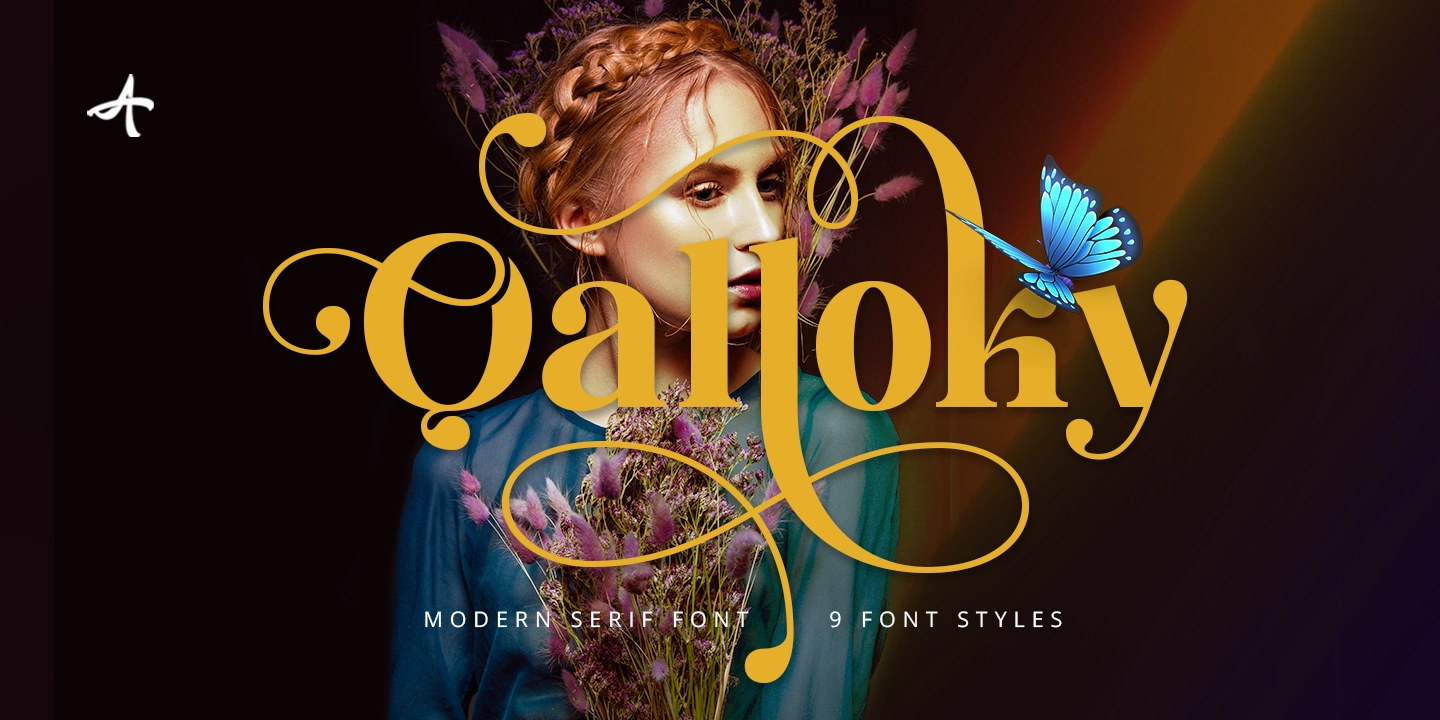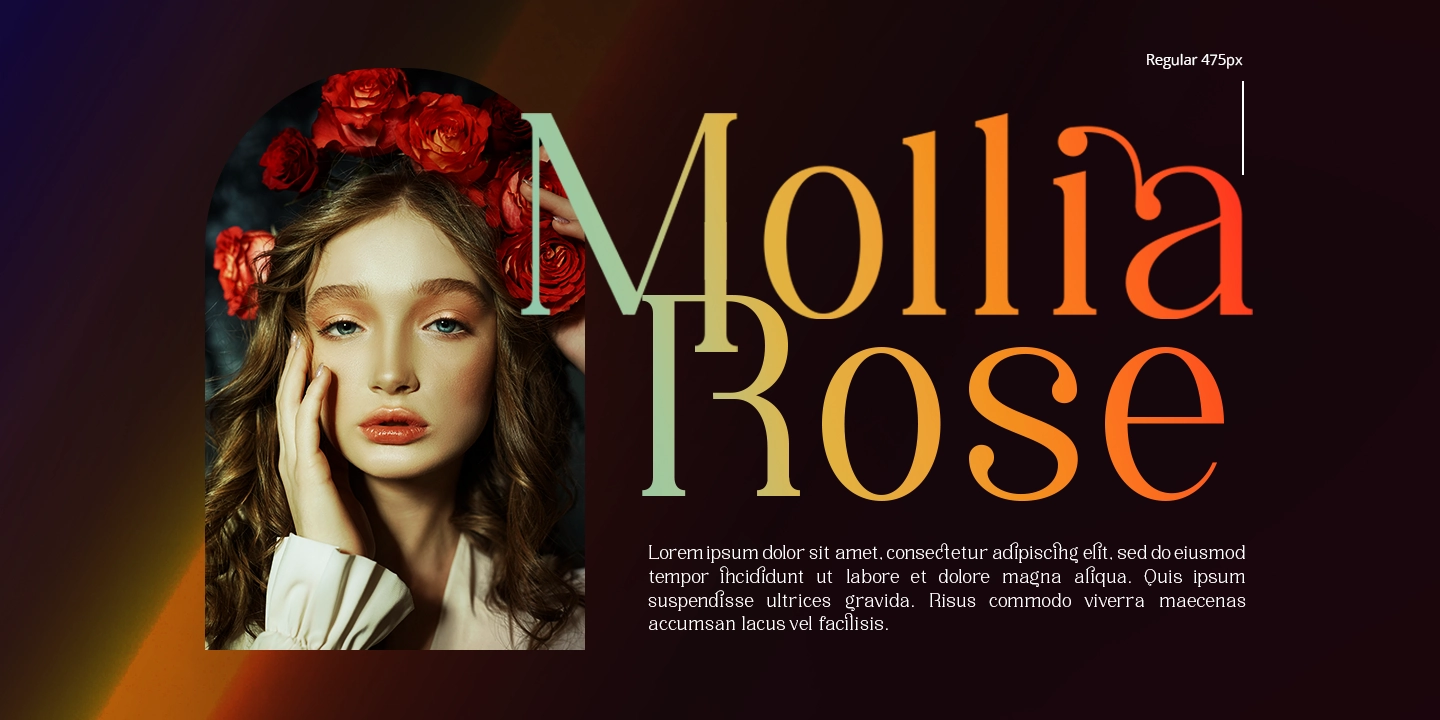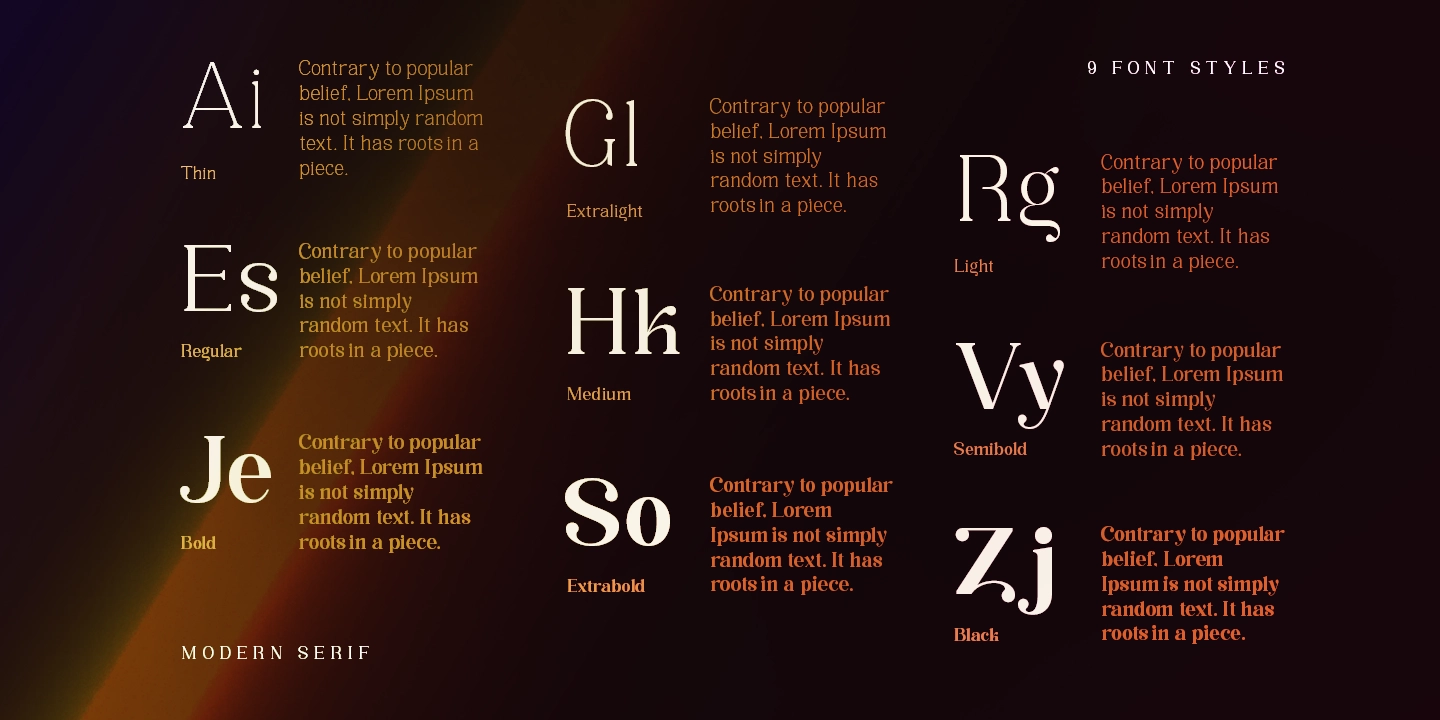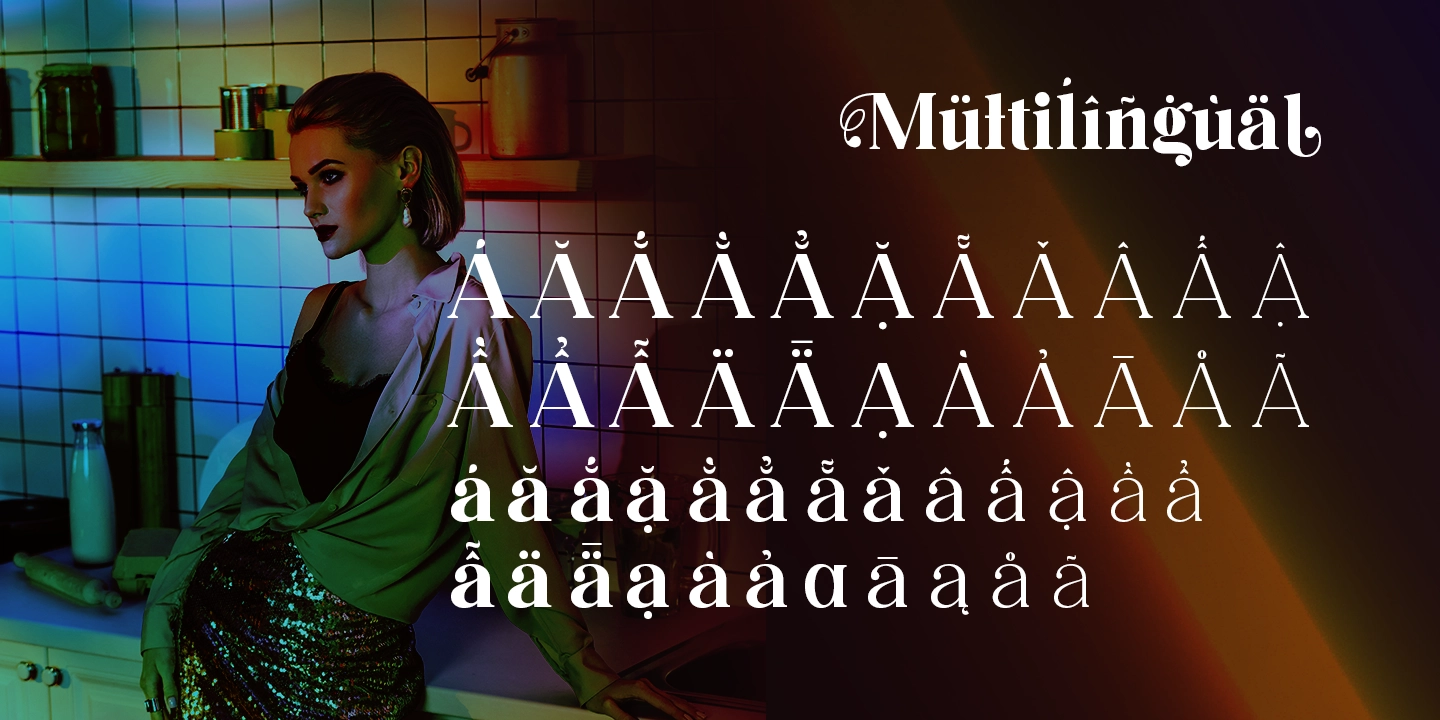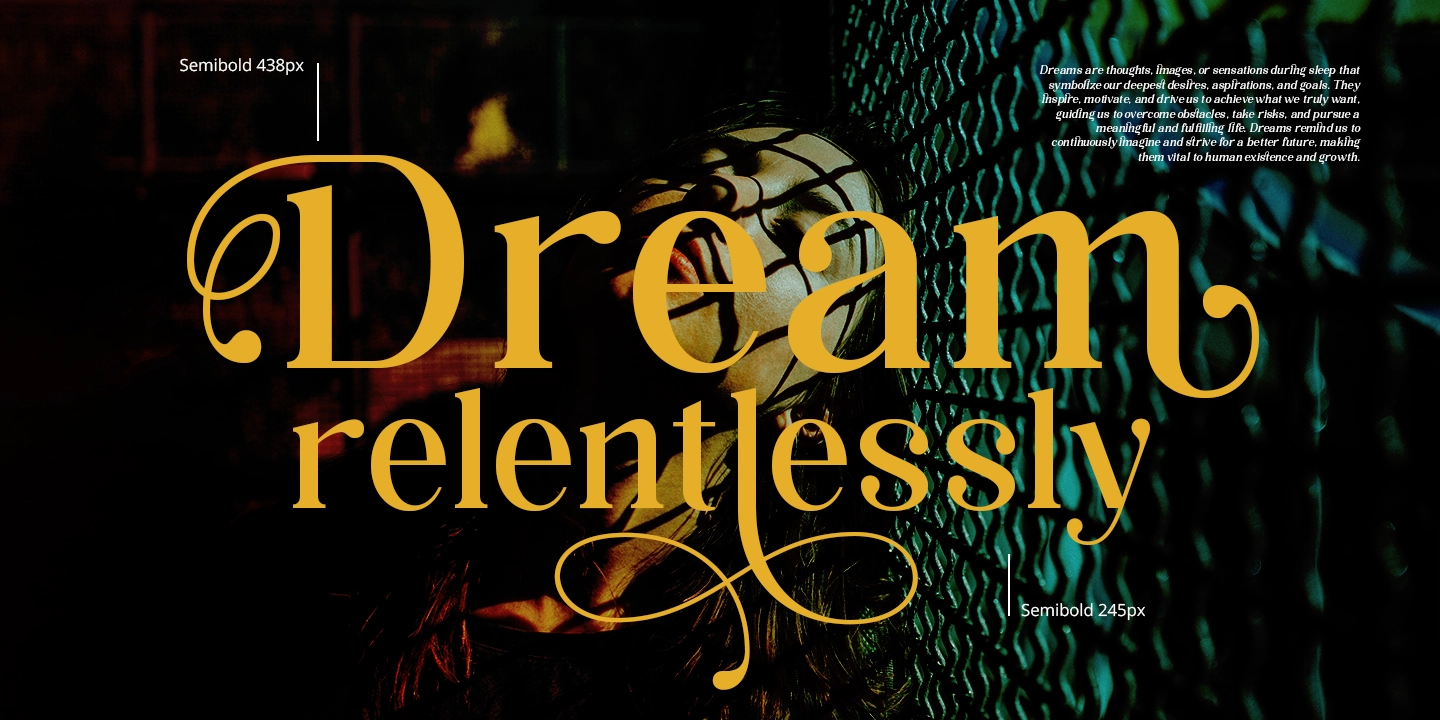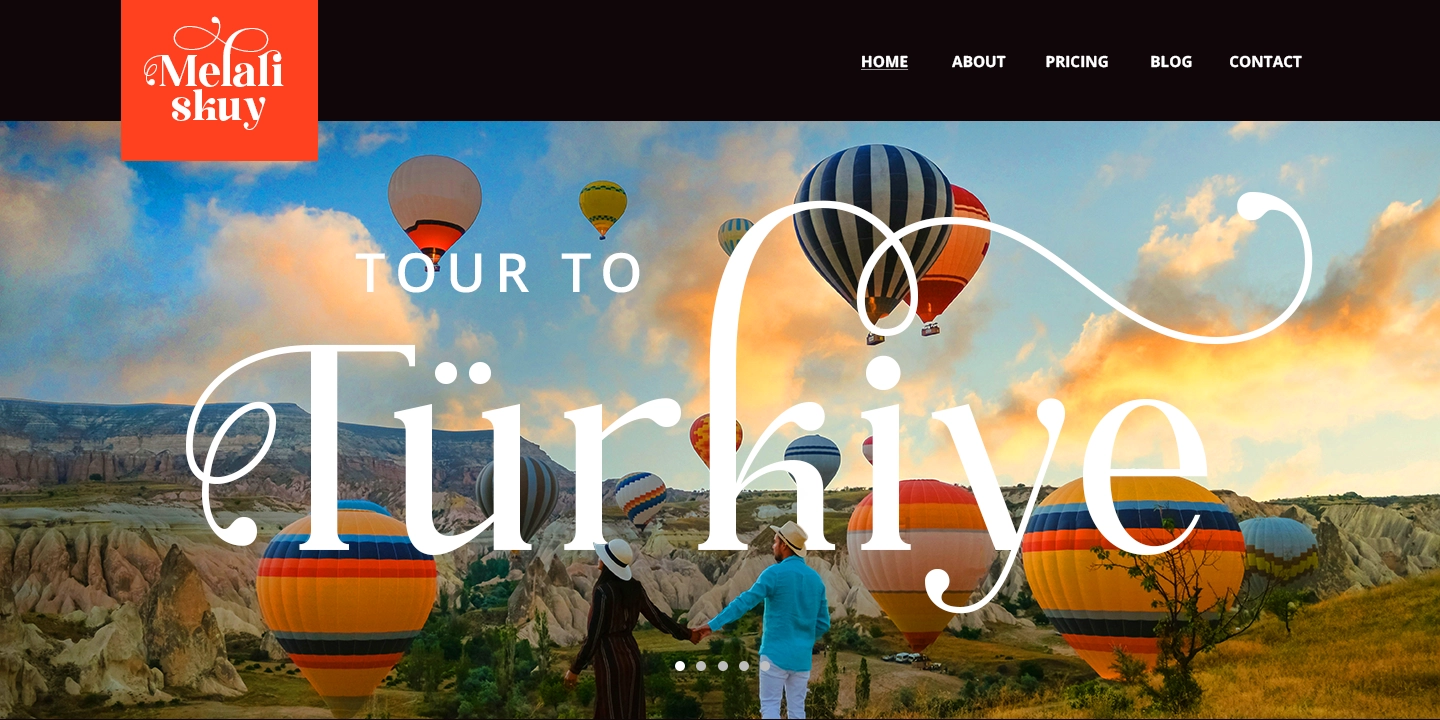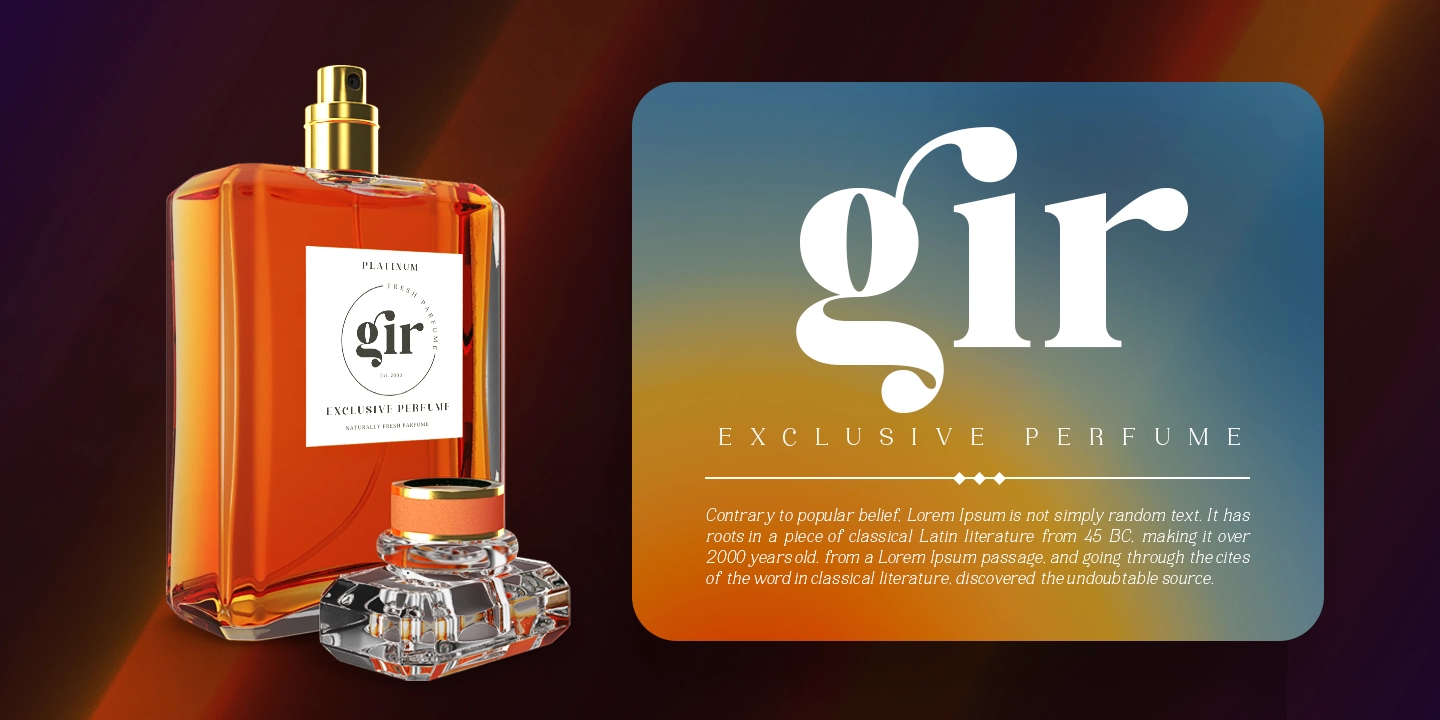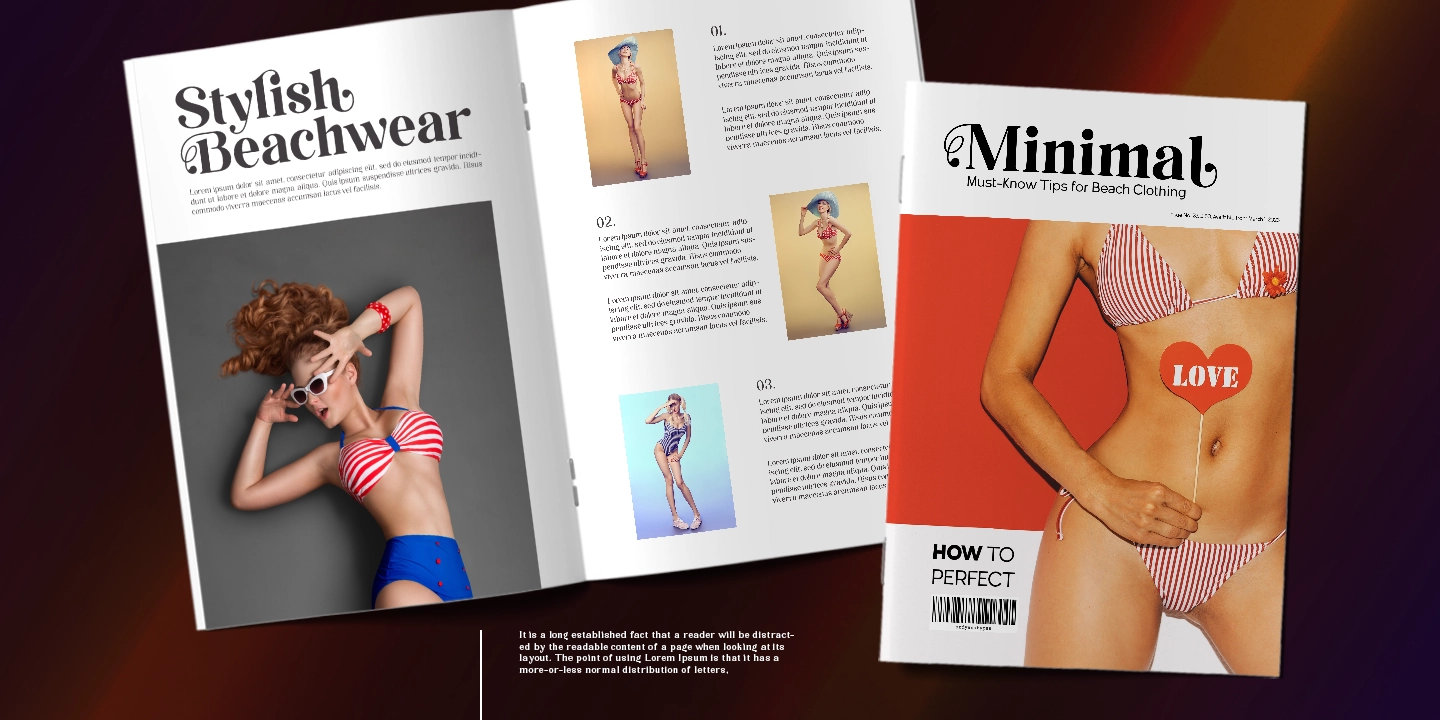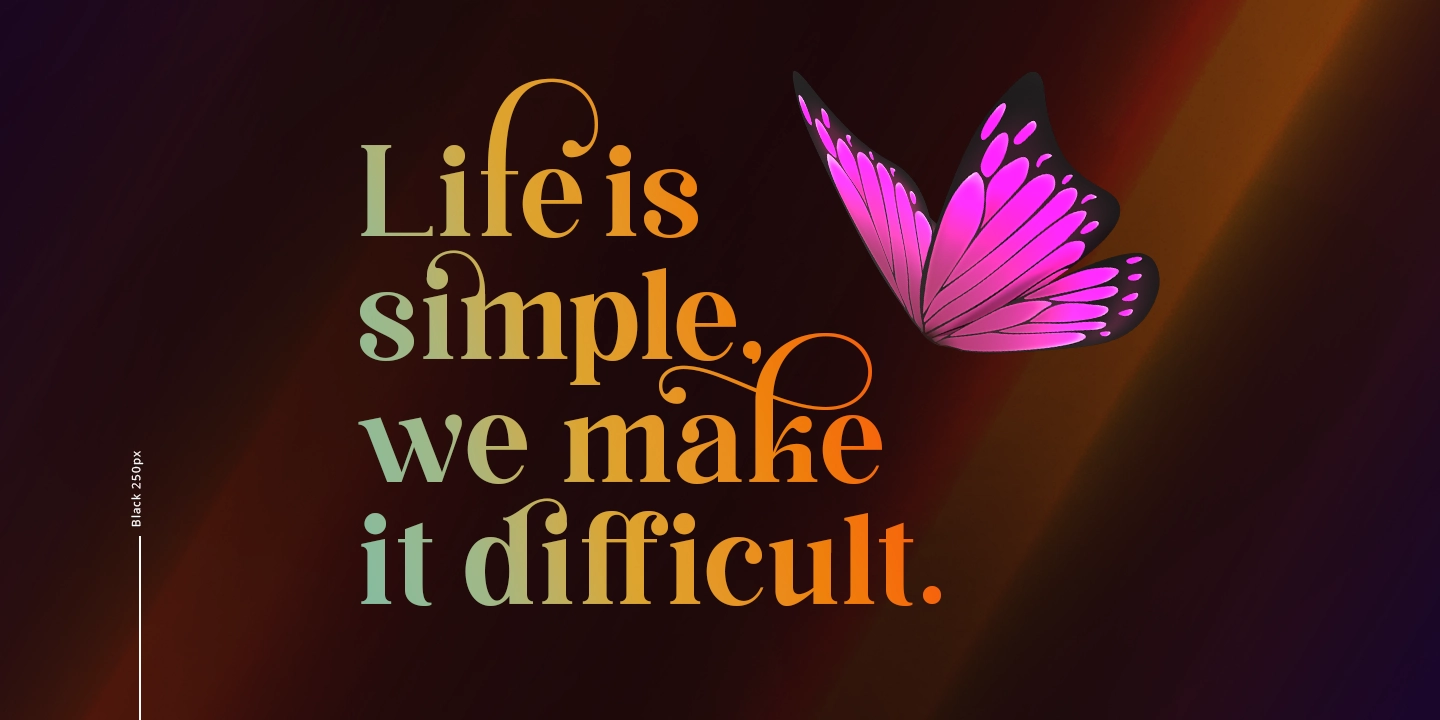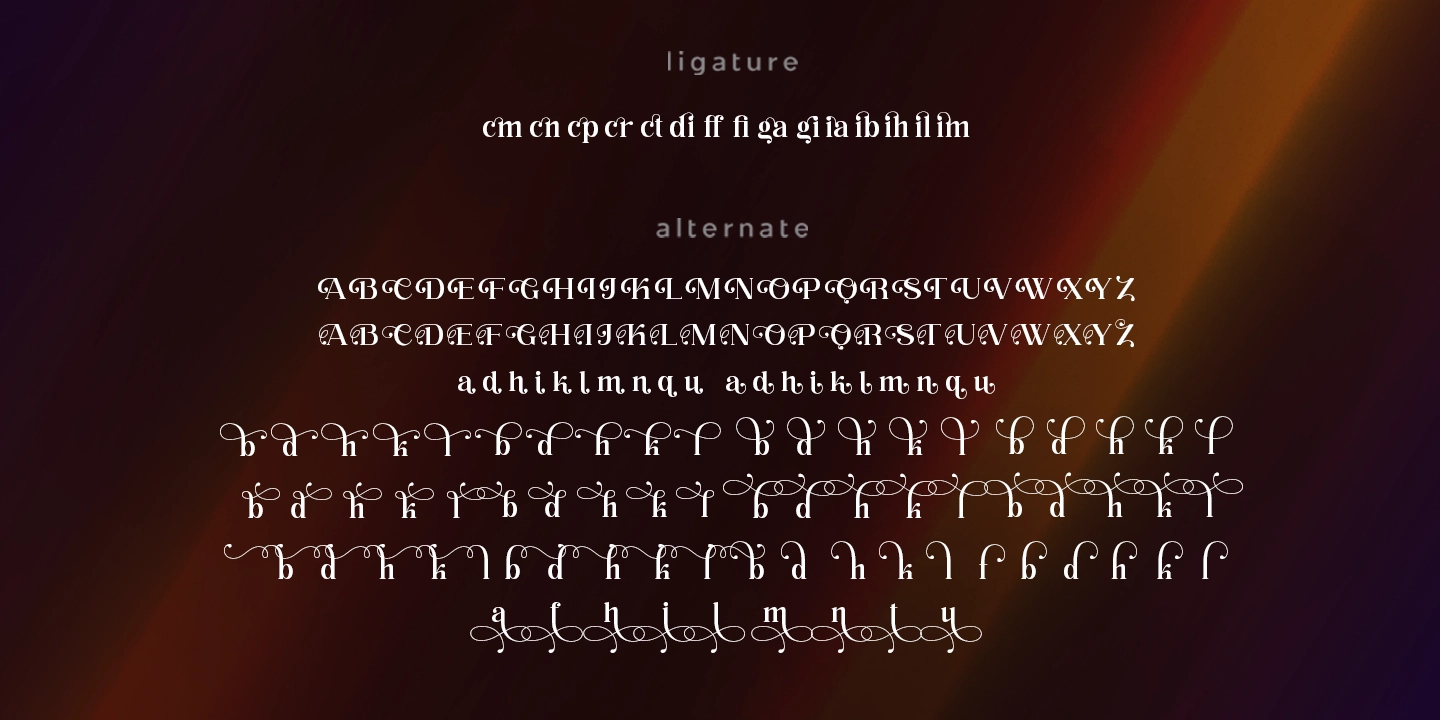
Qalloky - Modern Serif
Qalloky is a stunning representation of modern style in the serif font category. Carefully designed, this font exudes a clean and elegant impression, suitable for various graphic design projects. With rich OpenType features, Qalloky showcases versatility in its usage.
The sharpness and smoothness of its letterforms give a futuristic impression while maintaining exceptional readability. Each character is crafted with precision, making every word written with Qalloky a work of art in itself.
The advantages of OpenType allow limitless variations and creativity in using this font. From elegant ligatures to intriguing alternate characters, every detail is meticulously considered to provide maximum visual beauty.
Not only that, the multilingual capability of this font enables its extensive use in various languages, expanding its coverage and flexibility in diverse design projects worldwide. With Qalloky, your designs will be enhanced to become more dynamic, modern, and impressive.